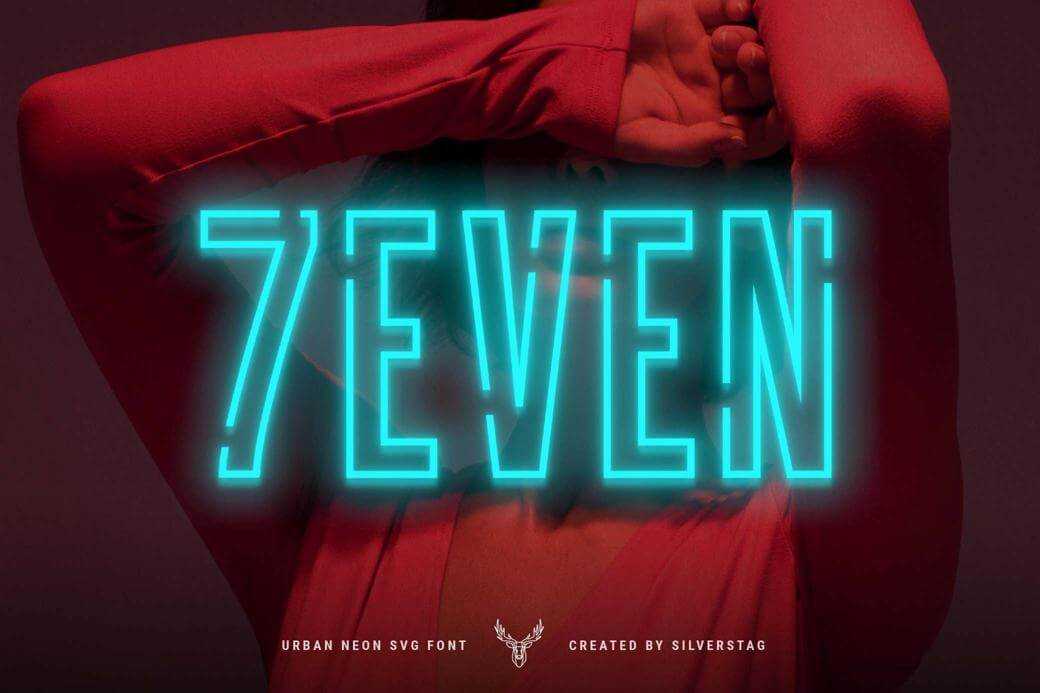
Indulge in the captivating allure of the nightlife with the latest offering: the 7 EVEN Neon Font Pack. This font collection captures the essence of a much-anticipated Friday evening, where neon signs illuminate the darkness, inviting you to unwind and embrace the weekend spirit. The fonts exude the mesmerizing glow of neon lights, perfectly capturing their essence. The intricate craftsmanship of recreating this neon aesthetic has yielded stunning results. These typefaces emit a soft yet vibrant radiance that’s impossible to resist – and why should you? Immerse yourself in the free font pack and unleash your creativity. With a selection of 5 fonts, each available in solid, outlined, and outlined cut versions, you have the power to infuse luminosity into your designs. The pack also features two SVG variants: one with regular outlines and another with cut lines, offering endless experimentation possibilities. Dive into this font collection and let the luminous charm of neon transform your design projects. Download the 7EVEN Neon Font Pack today and let your creativity shine! Seven – Se7en